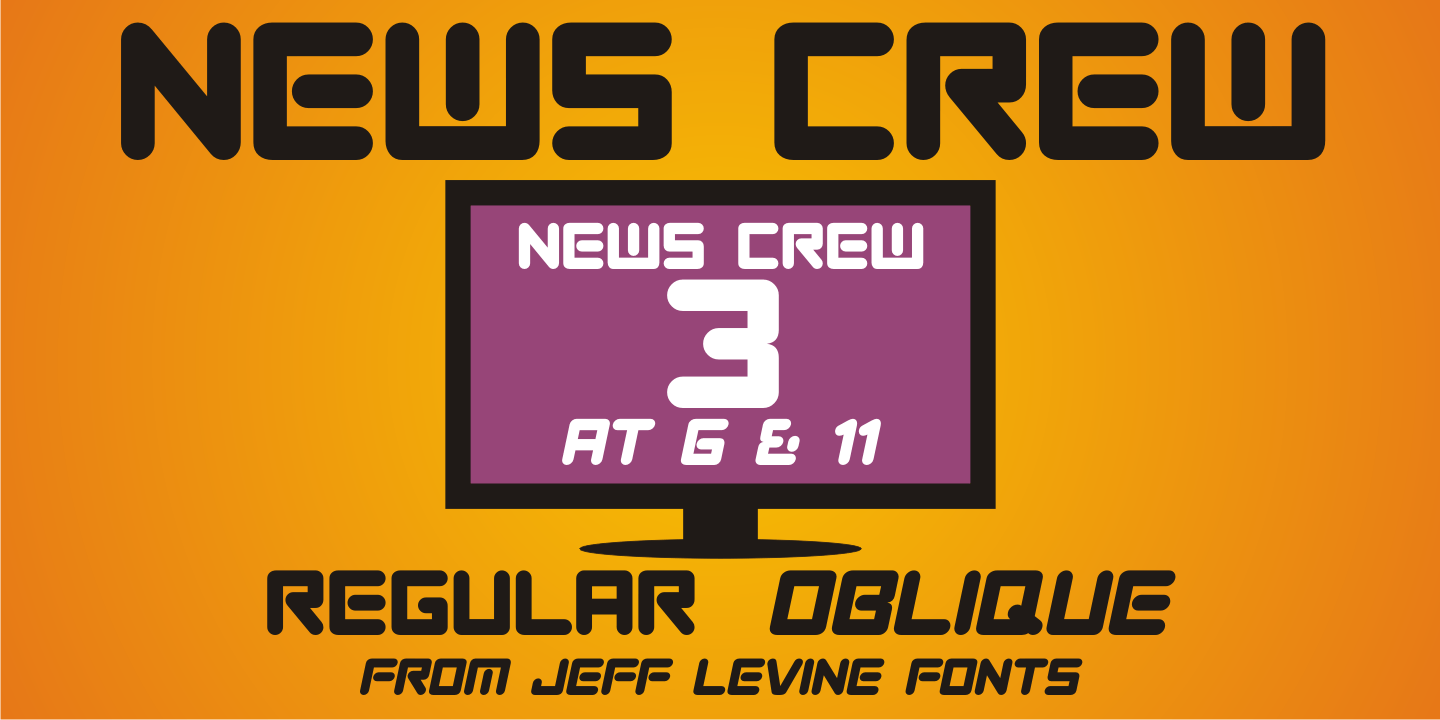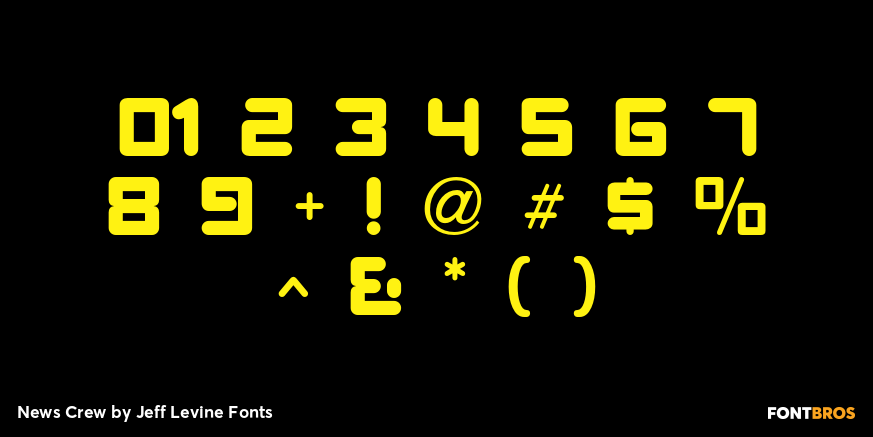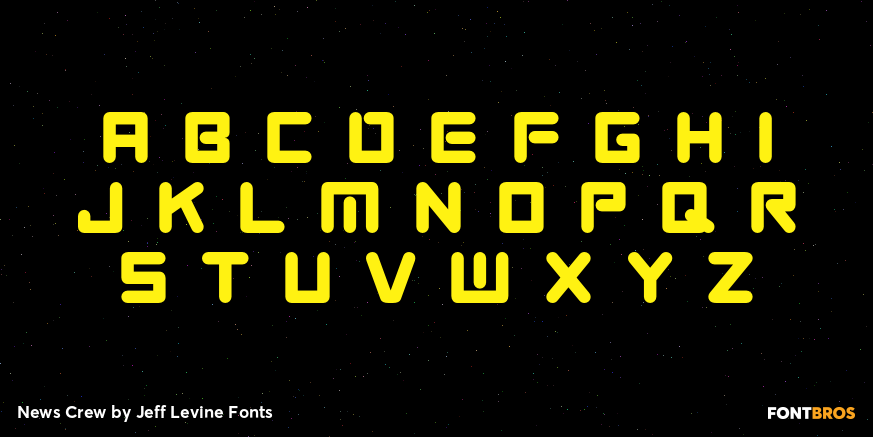
News Crew
It seems that after the 1960s, very few display typefaces were being produced that had the desirability to transcend generations, as did many type designs of the past.
In 1970, a local television station embraced a lettering style for its logo that was a cross between round point pen nib lettering and the modular, techno look complete with squared characters in a futuristic "space age" style.
News Crew JNL was inspired by the few examples found of this particular font [in use by the station at the time] and was pretty much created from scratch in order to capture the 1970s era of experimental typography. It is available in both regular and oblique versions.